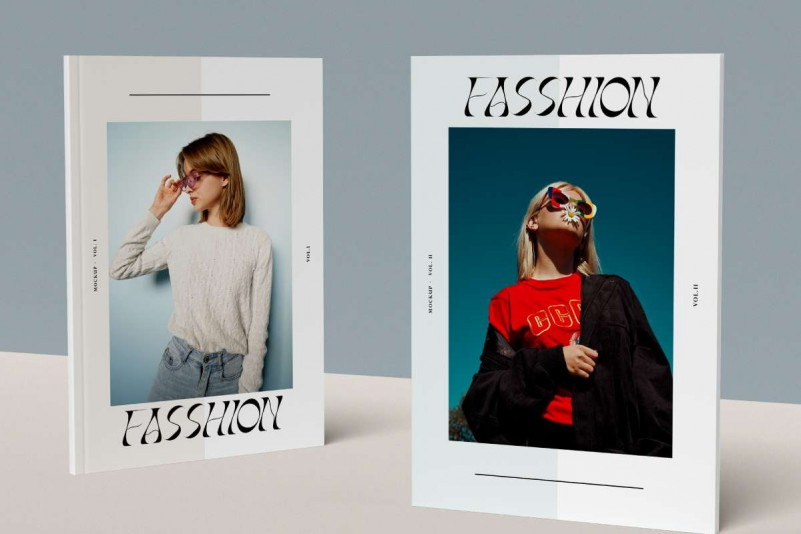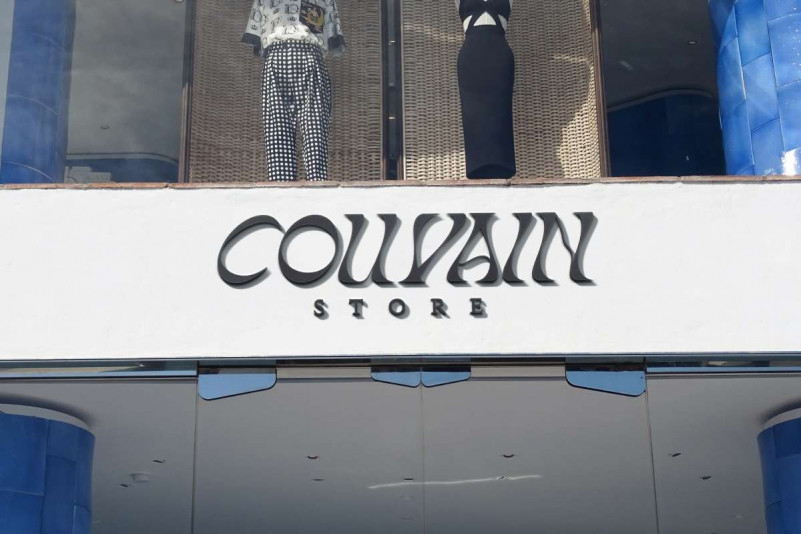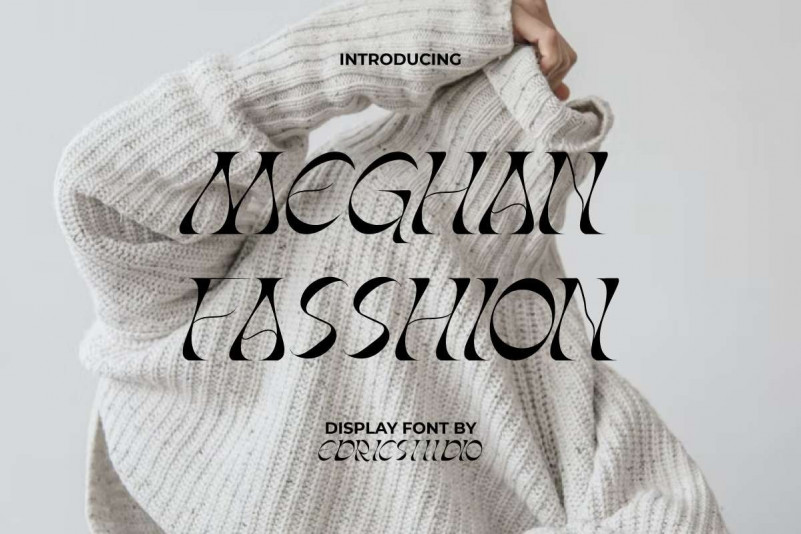
Meghan Fasshion Display Font is a unique abstract display font, created by EdricStudio. This font has a hippie curve that looks Classic but Modern to create a standout typeface. It’s perfect for all industries, such as accessories, artist, boutique, café, cosmetic, fashion, handicraft, lodging, photography, restaurant, salon, shopping center, much more.
Meghan Fasshion Font comes with ALL CAPS between Uppercase and Lowercase Basic Characters, Number, large range of Punctuation and Symbol. It has a stunning characters set, perfectly managed with well spaced and kerning. Meghan Fasshion Font will be great for any projects (with extended license) including: brand logo, cover, frame art, label, magazine, product packaging, screen printing, signage, title, website, and will have the potential to take your every creative idea to the highest level!